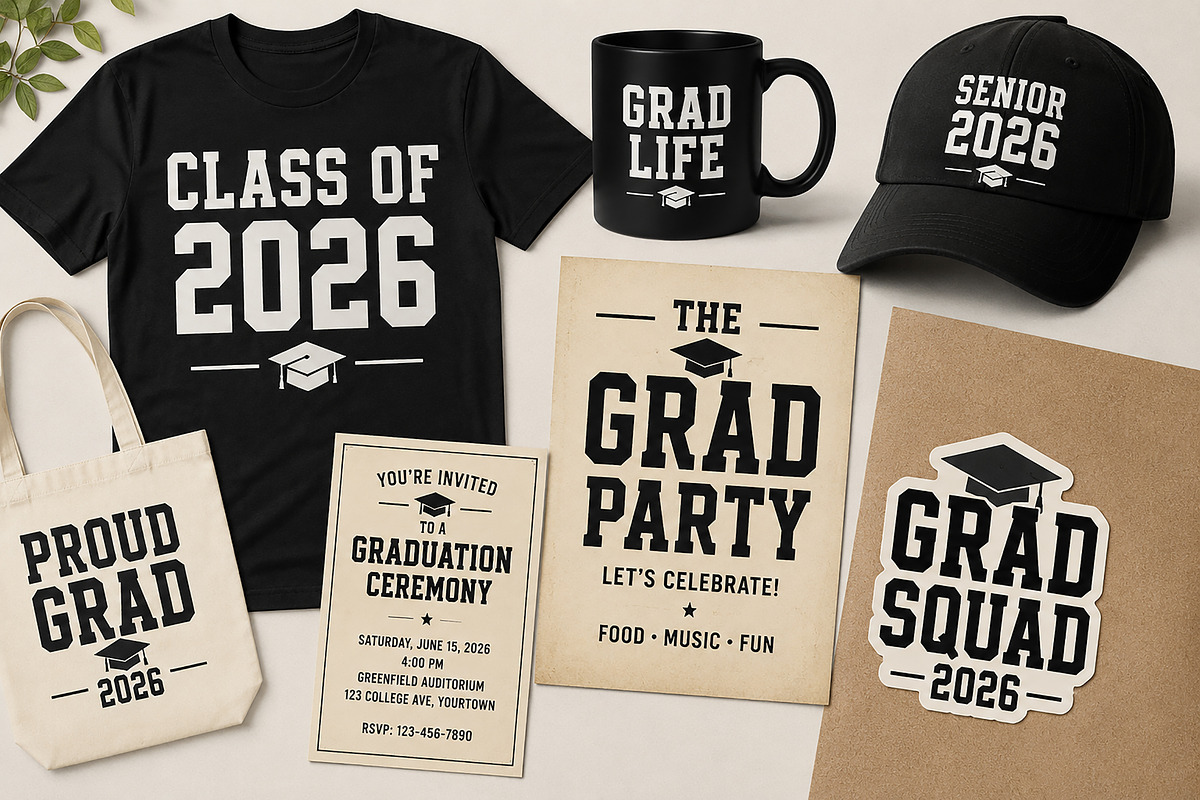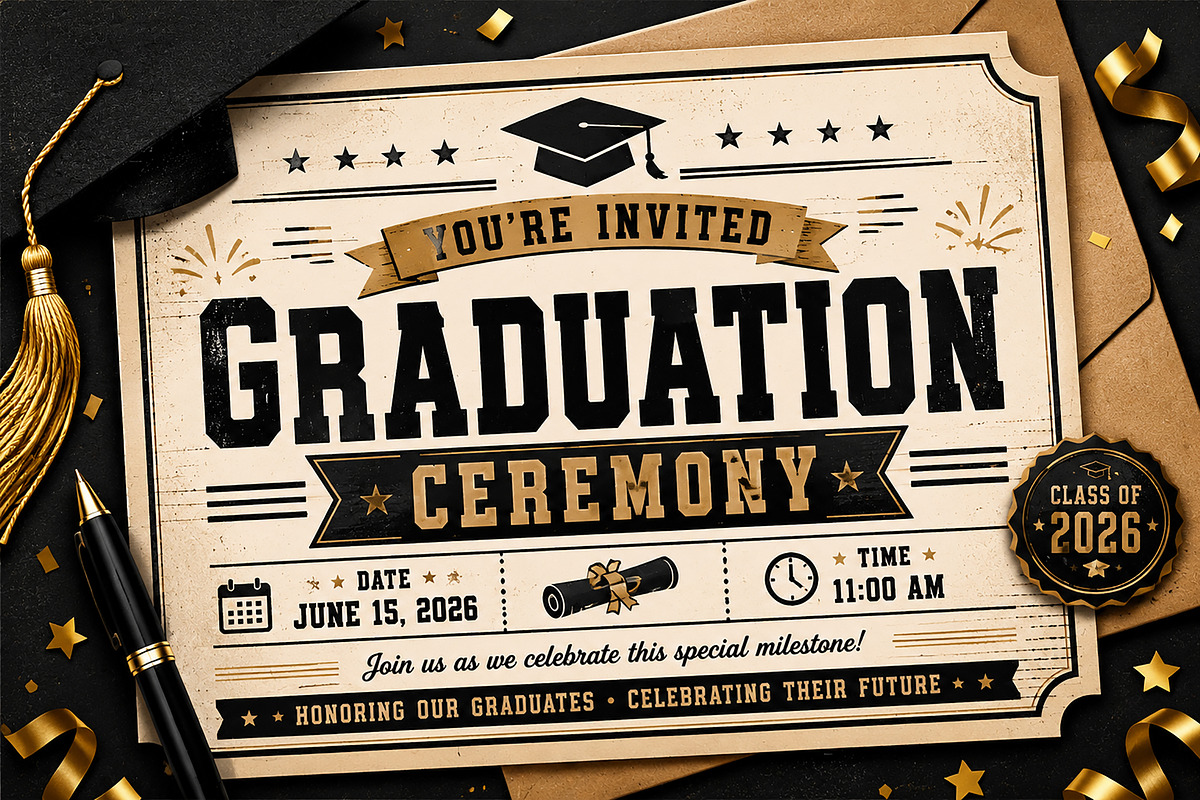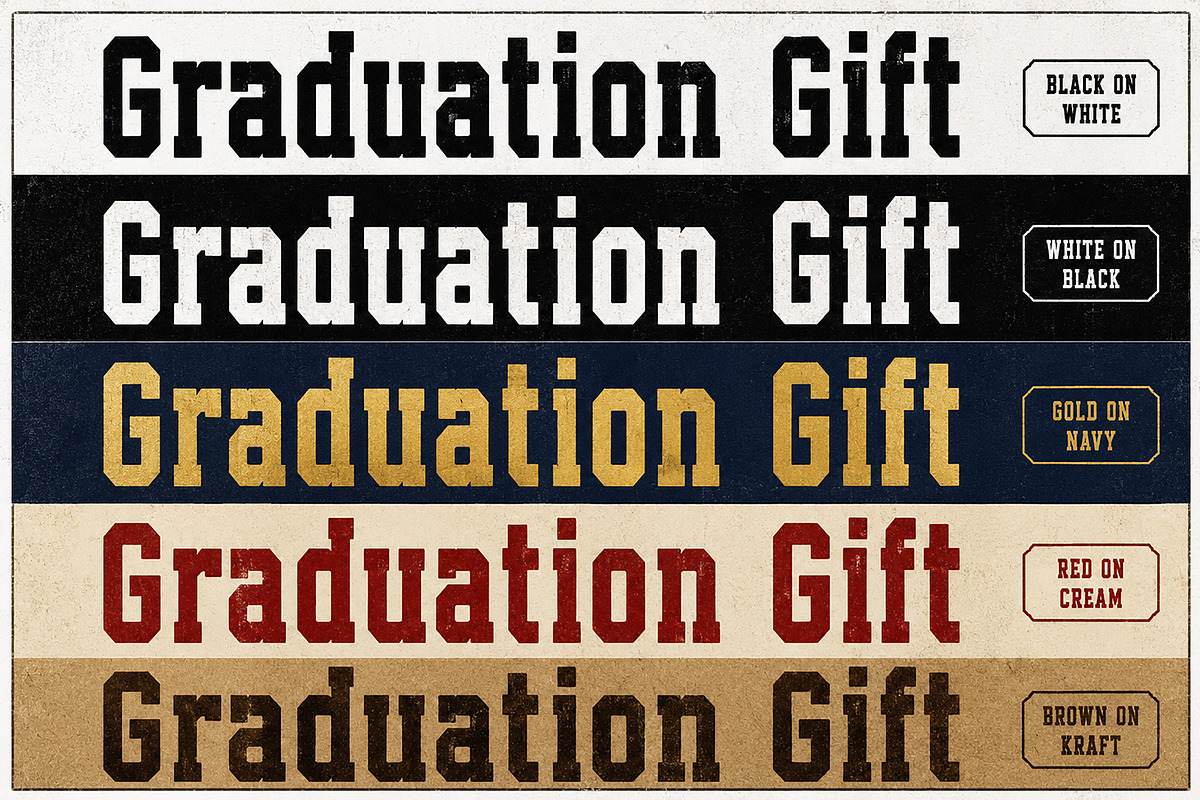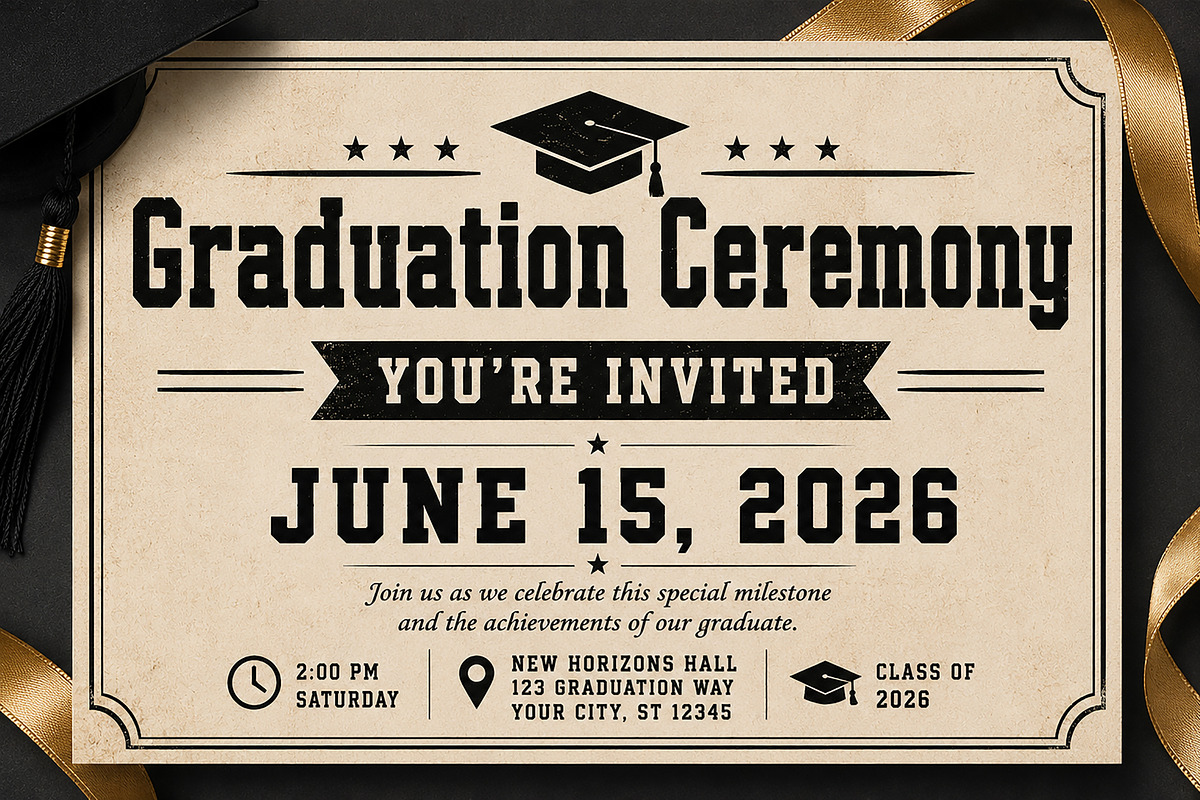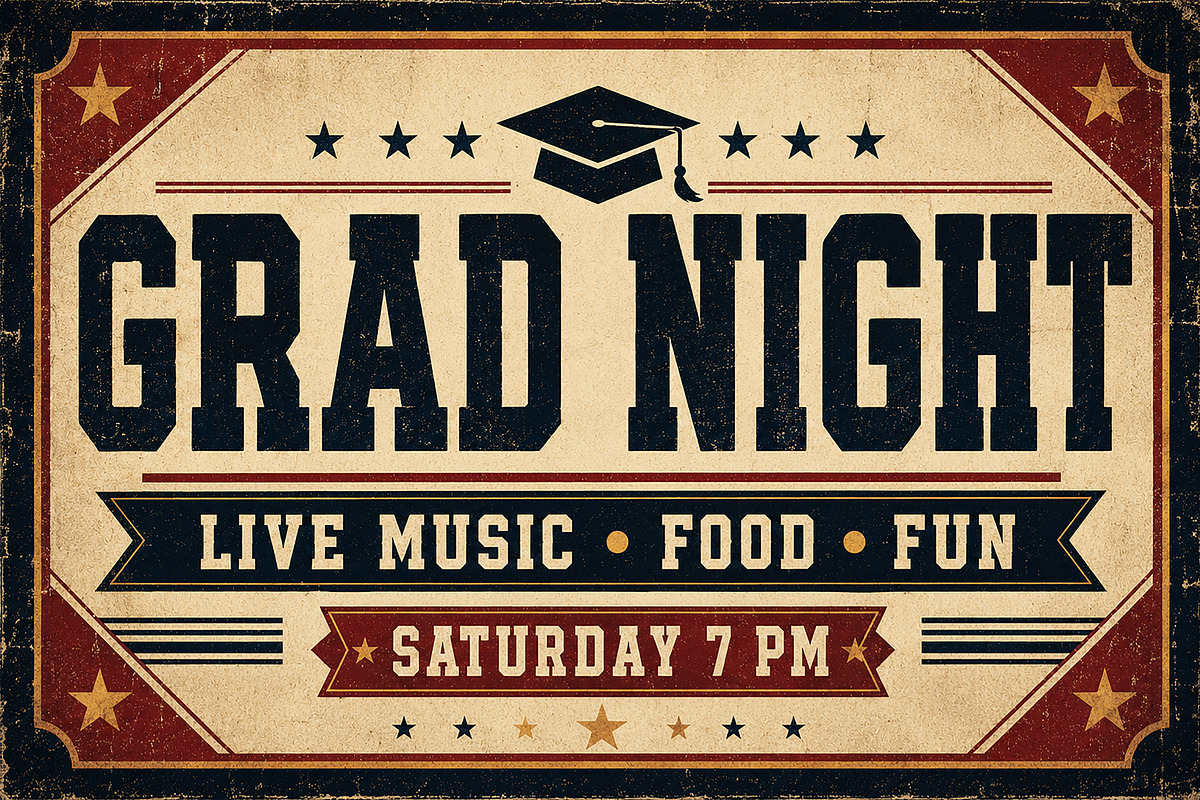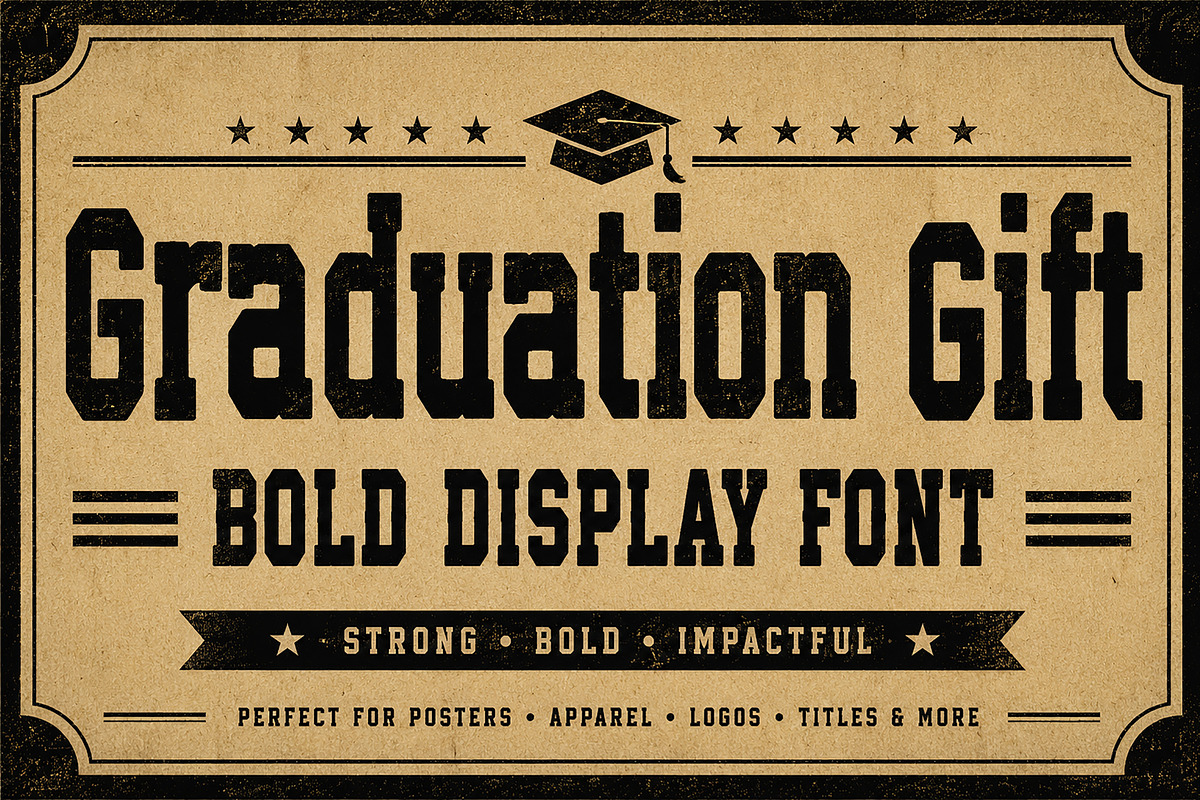
Graduation Gift
Graduation Gift – Display Font / Tall Serif Font / Vintage College Font
Graduation Gift is a bold and tall display font with a classic academic and vintage-inspired style. Its strong narrow letterforms, sharp slab-serif details, and confident structure make it perfect for graduation designs, school events, university branding, certificates, posters, apparel, invitations, and memorable headline typography.
This font brings a formal yet creative personality to any project. The bold vertical shape gives your design a strong presence, while the classic serif style adds a timeless academic feel. Graduation Gift is ideal for designs that need a proud, celebratory, and professional look.
Graduation Invitations
School & University Designs
Academic Posters
Certificates
Event Flyers
Class of Designs
Apparel & T-Shirts
Gift Cards
Bold Headlines
Tall Serif Display Style
Vintage Academic Look
Bold Narrow Letterforms
Uppercase Characters